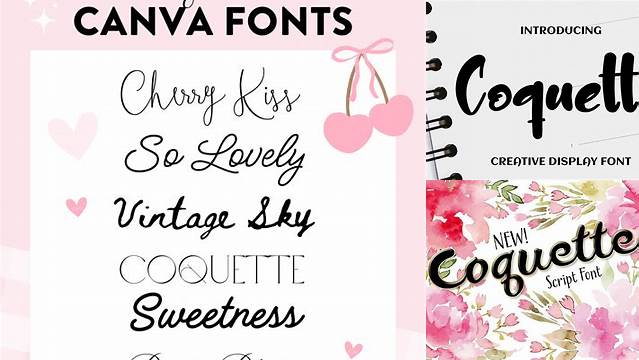
Fonts Coquette Symbols: Your Ultimate Guide
Hey guys, let's dive into the super cute world of fonts coquette simbolos! If you're into all things girly, aesthetic, and a little bit extra, then you're in the right place. This guide is your ultimate go-to for everything related to these adorable fonts and the symbols that make them pop. We'll explore what makes these fonts so special, where to find them, how to use them, and even give you some fun ideas to unleash your creativity. Get ready to add a touch of sweetness and charm to your designs – let's get started!
H2: Unveiling the Essence of Coquette Fonts
So, what exactly are fonts coquette simbolos? Think of them as the visual embodiment of all things delicate, feminine, and playfully chic. These fonts often feature whimsical letterforms, delicate serifs, and sometimes even come with adorable accompanying symbols like hearts, bows, stars, and sparkles. They're all about capturing that sweet, romantic, and slightly vintage vibe that's currently taking the design world by storm. Coquette fonts are the perfect choice for projects where you want to evoke feelings of charm, tenderness, and a touch of nostalgia. They're not just fonts; they're a whole aesthetic! They speak to a certain mood, a feeling, a sense of lightness and fun. It's like a visual whisper, saying, "Hey, I'm cute, and I know it!" The beauty of these fonts lies in their versatility. You can use them in a variety of projects, from personal stationery and social media graphics to branding and packaging for businesses. They add a unique touch that can instantly elevate your designs and make them stand out from the crowd. They are all about that feeling, that extra bit of magic that transforms an ordinary design into something truly special. When you choose a coquette font, you're not just picking a font; you're selecting a whole personality for your design.
These fonts often incorporate elements like elegant curves, swashes, and ligatures, adding a touch of sophistication and visual interest. They are crafted to be both visually appealing and easily readable, ensuring that your message is clear and engaging. The accompanying symbols, or simbolos, are the icing on the cake. These little extras, such as tiny hearts, floral accents, or delicate stars, add that final touch of charm that perfectly complements the font style. They're the visual punctuation marks that truly bring the coquette aesthetic to life. They're all about the details. Whether you're a seasoned designer or just starting out, understanding the core elements of coquette fonts is essential for creating designs that capture that sweet, dreamy vibe. It's about embracing the beauty in simplicity, celebrating the feminine touch, and adding a sprinkle of magic to everything you create. It's about making the ordinary extraordinary, and making the everyday a little bit sweeter.
H2: Exploring the Popular Coquette Font Styles
Now that we know what they are, let's explore some popular fonts coquette simbolos styles. There is a whole world of font styles out there, ranging from the classic to the quirky. Each has its unique charm and personality. Some of the most popular include script fonts, which mimic elegant handwriting, perfect for adding a personal touch to your designs. Then, you have the serif fonts, which have those little decorative strokes at the end of each letter, adding a touch of vintage charm. And, of course, there are the sans-serif fonts, which have clean lines and a modern feel. They can bring a fresh and contemporary touch to any project. Each font family has its own unique traits, from the thickness of the strokes to the spacing between the letters. But the beauty of fonts coquette simbolos is in the details. These fonts often include swashes, which are decorative flourishes that extend from the letters, adding a touch of elegance. They also come with ligatures, which are special characters that combine two or more letters into a single glyph, adding a touch of visual interest. Knowing the different font styles and their characteristics can help you make the right choice. Whether you're designing a logo, creating a social media post, or crafting a website, choosing the right font style can make all the difference. But the best thing is that you have many choices to fit any project.
Some examples of these include the script fonts, with their delicate strokes and elegant curves. These are perfect for adding a touch of romance and sophistication to your designs. Then there are the display fonts, which have bolder and more eye-catching designs that are best suited for headlines and titles. And, of course, you have the sans-serif fonts, which have clean lines and a modern feel. These can bring a fresh and contemporary touch to any project. Each font style brings its own unique charm and personality to the table. Script fonts can give an extra feeling of elegance and grace, while display fonts can help you make a bold statement. Understanding the various font styles and their unique characteristics is a key step in designing. Because with the right choice, you can create designs that capture the sweet, dreamy vibe of the coquette aesthetic. They are made to give your designs a touch of sweetness and charm. And to stand out from the crowd!
H3: The Charm of Script Fonts in the Coquette Aesthetic
Script fonts are like the graceful dancers of the fonts coquette simbolos world. These fonts are all about elegance and sophistication, with their flowing lines and delicate curves that mirror the beauty of handwritten letters. The allure of script fonts lies in their ability to add a personal and intimate touch to any design. They can evoke a sense of romance, nostalgia, and timeless charm that's hard to replicate with other font styles. They're often used for wedding invitations, greeting cards, and other projects where you want to convey a feeling of specialness and care. The beauty of script fonts is that they are very versatile. You can find script fonts that are perfect for any project. You can find them in many styles, from the classic and elegant to the modern and playful. Some script fonts feature elaborate flourishes and swashes, adding an extra touch of visual interest and sophistication. Others have a more simple and streamlined design, which is great for projects that need a clean and easy-to-read font. The best part is that they are always beautiful.
In the context of the coquette aesthetic, script fonts perfectly embody that sweet, romantic vibe. The flowing lines and delicate curves of script fonts create a sense of movement and grace, which is a key element of the coquette style. They're perfect for projects where you want to evoke feelings of tenderness, affection, and a touch of nostalgia. When paired with coquette symbols, such as hearts, bows, and floral accents, script fonts can truly transform your designs. They add a touch of whimsy and playfulness that captures the essence of the coquette aesthetic. Script fonts can take your projects to the next level, adding a touch of magic that transforms an ordinary design into something truly special. Whether you're creating a logo, designing a social media post, or crafting a website, choosing the right script font can make all the difference. With their elegance and charm, script fonts are always a great choice.
H3: Serif Fonts: Adding a Vintage Touch to Coquette Designs
Serif fonts are those classic fonts that have little decorative strokes at the end of each letter. When you use fonts coquette simbolos, serif fonts can add a vintage touch to your designs. They create a sense of elegance and sophistication. They're a great choice when you want to evoke feelings of nostalgia and timeless charm. Serif fonts are like the trusted friends of the font family. They've been around for a long time, and they're always there to add a touch of class to any project. From classic books to elegant websites, serif fonts have a place in the heart of many designs. These fonts are versatile, because they come in various styles. There are the traditional serif fonts that give a classic vibe, and there are more modern options that have a more contemporary feel. This means that you have many choices to fit any project.
In the context of the coquette aesthetic, serif fonts can bring a unique touch to your designs. They add a sense of elegance and sophistication that can perfectly complement the sweet and romantic vibe of the coquette style. When used in combination with coquette symbols, like hearts, bows, and floral accents, serif fonts create a cohesive and visually appealing design. It's a perfect way to create designs that capture the essence of the coquette aesthetic. Serif fonts add a sense of timelessness, making your designs feel both classic and chic. Whether you're designing a logo, creating a social media post, or crafting a website, the right serif font can elevate your designs. So you can create a design that is both beautiful and memorable. Serif fonts are always a great choice!
H3: Modern Sans-Serif Fonts in the Coquette Universe
While script and serif fonts have a classic appeal, modern sans-serif fonts also play a role in the fonts coquette simbolos aesthetic. Sans-serif fonts are those fonts that don't have the little decorative strokes at the end of each letter. They offer a clean and modern look that is perfect for balancing the sweetness and charm of the coquette style. These fonts can bring a sense of balance and sophistication to any project. They're known for their simplicity and readability, making them a great choice for various design applications. They're great for the minimalist aesthetic, or when you want to bring a touch of modernism to your designs.
In the context of the coquette aesthetic, sans-serif fonts can add a touch of sophistication and modernity. They're perfect for creating designs that feel both fresh and stylish. When paired with coquette symbols and colors, these fonts create a great design. Their clean lines and easy readability make them a great choice for designs, like websites and social media graphics. They are also great in projects where you want to highlight the message. Sans-serif fonts can give that sophisticated vibe, while still capturing the essence of the coquette aesthetic. Whether you're designing a logo, creating a social media post, or crafting a website, the right sans-serif font can make all the difference. With their modern and versatile design, they are always a great choice.
H2: Finding the Perfect Coquette Fonts: Where to Look
Alright, now that we know the different font styles, it's time to hunt for those perfect fonts coquette simbolos. There are many places to find them, each with its own unique advantages. From free websites to premium font marketplaces, you have many options. It's all about knowing where to look and how to make the most of your choices. You can get creative and explore the different options available to you, and discover new things. Remember that exploring is half of the fun.
H3: Free Font Resources for Coquette Lovers
If you're on a budget, don't worry, there are plenty of free resources for fonts coquette simbolos. Free fonts are a great way to experiment with different styles and see what works best for your projects. Websites like Google Fonts and Font Squirrel are goldmines of free fonts. You can find various fonts to download and use, all for free! Another great option is to check out websites that offer free font bundles. These bundles often include a curated selection of fonts, making it easy to find the perfect font for your next project. Keep in mind that while free fonts are a great resource, it's always a good idea to check the license before using them for commercial projects. Some free fonts may have restrictions on how they can be used, so always double-check the details before you start. Even though free fonts are great, remember to check the licenses to make sure you are using them correctly.
H3: Premium Font Marketplaces and Their Advantages
If you're looking for more options and want to support font designers, premium font marketplaces are a great choice. Websites like Creative Market and MyFonts offer a wide selection of high-quality fonts coquette simbolos. This includes different font styles, from script fonts to serif fonts, that are perfect for any coquette project. One of the advantages of premium fonts is the level of quality and design. Professional designers have created these fonts, ensuring that they're not only beautiful but also well-crafted and optimized for use. You'll often find a variety of font weights, styles, and characters, giving you more flexibility in your designs. Another advantage of premium fonts is the licensing. You'll often get a more flexible license, which means you can use the fonts for both personal and commercial projects without any limitations. While premium fonts come with a cost, they offer a better value for your money. They are more professional, which makes them more visually appealing. This can help you create a design that stands out and makes an impression. So if you're looking for high-quality fonts and want to support font designers, premium font marketplaces are a great choice. Remember that investing in premium fonts can really elevate the overall quality and design of your projects.
H2: Integrating Coquette Symbols into Your Designs
Let's explore the world of fonts coquette simbolos and the creative ways you can integrate those adorable symbols into your designs. These little details can bring a touch of sweetness and playfulness, enhancing your designs. Symbols are the perfect way to capture the essence of the coquette aesthetic, adding a touch of visual interest. Here's how to use these symbols effectively.
H3: Utilizing Heart and Bow Symbols for a Feminine Touch
Heart and bow symbols are the heart and soul of the fonts coquette simbolos aesthetic. They perfectly embody that sweet and romantic vibe. Whether you're using a simple heart icon or an intricate bow design, these symbols can instantly add a touch of femininity to your designs. You can use them in various ways, from creating logos and social media graphics to website designs and stationery. They can be incorporated into the text itself, as bullet points, or as decorative accents. The key is to use them in a way that enhances your overall design without overwhelming it. Think about using different sizes, colors, and placements to create a visually appealing composition. Try adding a heart icon next to a call-to-action button to encourage users to interact. Or, you can use a bow symbol to decorate the header of a blog post or a website. With these symbols, your designs will be irresistible.
H3: Stars and Sparkles: Adding Whimsy to Your Font Choices
Stars and sparkles are the perfect way to add a touch of whimsy to your fonts coquette simbolos designs. They bring a sense of playfulness and magic to your projects. You can incorporate them in different ways. Use star and sparkle symbols as accents for your typography, adding a touch of visual interest to your words. You can create a starburst effect around a headline or a call-to-action, making it pop and grab attention. You can also use stars and sparkles as backgrounds or patterns, creating a beautiful design. Play with different sizes, colors, and placements to create a visually appealing design. If you want to make your designs pop, stars and sparkles are a must-have in your design tool kit. These symbols are sure to create beautiful designs.
H3: Floral Accents and Embellishments in Coquette Designs
Floral accents are another great way to enhance the fonts coquette simbolos aesthetic. They add a touch of nature and elegance to your designs. There is a world of floral options to choose from. You can use simple flower icons or more detailed illustrations. Floral accents can be used in several ways. You can use floral elements as accents in your typography, adding a touch of visual interest to your words. Floral accents are perfect for adding a touch of elegance to your designs, from wedding invitations to social media graphics. You can create a border or frame around your text. To complement your text, you can add a floral background or pattern. Experiment with different colors and placements to create a visually appealing design. With floral accents, your designs will be sure to impress.
H2: Tips and Tricks for Using Coquette Fonts Effectively
Now that you have your fonts, it's time to learn the best practices. Let's uncover some tips and tricks for using fonts coquette simbolos effectively. From selecting the perfect font pairings to considering readability and accessibility, these insights will help you create designs that capture the charm of the coquette aesthetic. Here's what you need to know.
H3: Perfecting Font Pairings for Maximum Impact
Choosing the perfect font pairings is crucial when working with fonts coquette simbolos. This is the key to creating a harmonious design. Here are a few tips to get you started. First, start by selecting a primary font that sets the tone for your design. Then, choose a secondary font to complement your primary font, creating a balanced design. When pairing fonts, you can use a variety of options. You can try pairing a script font with a sans-serif font. They offer a great contrast, while still being beautiful. If you want a more cohesive look, you can pair a script font with a serif font. Another option is to choose fonts with similar design styles. When creating your design, it's important to consider the overall message. The key is to select fonts that are visually appealing, and that communicate your message effectively. With these tips, you will create a beautiful design.
H3: Ensuring Readability and Accessibility in Your Designs
When working with fonts coquette simbolos, readability and accessibility should always be a top priority. You want your audience to easily read and understand your message. Here are some tips to keep in mind. First, choose fonts that are easy to read. Avoid fonts that are too ornate or complex. Then, make sure that there is enough contrast between the text and the background. Dark text on a light background is easier to read. You can use a tool, such as a color contrast checker. You can make sure that the design is accessible to people of all abilities. When designing, make sure you select the proper font size. You can also ensure readability by using proper line spacing and letter spacing. With these tips, you can ensure that your designs are beautiful and easy to read.
H3: Using Color Palettes to Complement Coquette Fonts
Using the right color palettes is essential when working with fonts coquette simbolos. It helps to complement the fonts. With these tips, you can create stunning designs. First, when selecting a color palette, consider the tone and message of your design. For example, you can choose soft pastels or vibrant colors. Make sure that the colors you select complement the fonts. You can use tools to create your palettes, such as Adobe Color or Coolors. You can also use online resources to search for inspiration. When designing, remember to choose colors that are accessible. By selecting the right colors, you can create amazing designs.
H2: Creating Coquette Designs: Creative Project Ideas
It's time to spark your creativity and explore some creative project ideas for fonts coquette simbolos. You can use these fonts to create various designs, from social media graphics to personal stationery. Whether you're a seasoned designer or just starting, here are some projects to inspire you.
H3: Designing Social Media Graphics with Coquette Fonts
Social media is a great place to use fonts coquette simbolos. You can create stunning social media graphics that capture your audience's attention. The options are endless: Instagram posts, Pinterest pins, and Facebook banners. Start by selecting the right fonts and symbols to match your design. Then, choose a color palette that complements your brand or theme. Be sure to ensure that the text is easy to read on different devices. By following these tips, you can create social media graphics that are beautiful and engaging. With the right fonts, symbols, and colors, you can create the designs of your dreams.
H3: Creating Personalized Stationery and Invitations
Fonts coquette simbolos are also perfect for creating personalized stationery and invitations. You can create beautiful and unique designs, from wedding invitations to thank-you cards. When you create the stationery, select a font that matches the overall tone of the event. Choose a color palette that complements the theme. Make sure your design is easy to read and appealing. By following these tips, you can create personalized stationery and invitations that are both beautiful and special. Create a design that captures the essence of your event, and with a bit of creativity, your stationery will be unforgettable.
H3: Branding and Logo Design with a Coquette Aesthetic
If you want to capture the charm of the coquette aesthetic, use fonts coquette simbolos. You can create branding and logo designs that create a lasting impression. Start by selecting a font that perfectly reflects your brand's personality and message. Choose a color palette that complements the fonts. Be sure to ensure that the design is versatile and memorable. You can also incorporate coquette symbols. With the right fonts, colors, and symbols, you can create branding and logo designs that capture the charm of the coquette aesthetic.
H2: The Evolution and Future of Coquette Fonts
Let's talk about the evolution and the future of fonts coquette simbolos. The coquette aesthetic has been around for a while. It continues to evolve and adapt to design trends. Here's a look at the past and the possibilities.
H3: The History and Origins of the Coquette Aesthetic
To understand the future of fonts coquette simbolos, let's learn the history. The coquette aesthetic has a rich history, dating back to the Victorian era. It embraces beauty, femininity, and nostalgia. Coquette fonts draw inspiration from this era, adding a touch of vintage charm. The coquette aesthetic has evolved, but it has always been associated with elegance, grace, and romance. With the evolution of the design, we are still using its key elements.
H3: Current Trends and Influences in Coquette Font Design
The fonts coquette simbolos aesthetic is constantly evolving. It is influenced by various trends, including modern designs. In order to be current, we should always pay attention to the latest design. By staying aware of trends, you can create designs that are both fresh and exciting. By knowing current trends, you will always be current.
H3: Predictions for the Future of Coquette Font Styles
As we move forward, what does the future hold for fonts coquette simbolos? We can predict exciting possibilities. The coquette aesthetic will continue to evolve. With creativity and innovation, these fonts will be even more popular. So, let's see how these fonts evolve.
H2: Troubleshooting Common Issues with Coquette Fonts
It's important to learn how to troubleshoot issues when working with fonts coquette simbolos. Here's how to fix the common problems, from missing glyphs to formatting issues. You'll have your designs looking their best in no time. Let's solve these problems.
H3: Dealing with Missing Glyphs and Character Issues
Missing glyphs and character issues can happen when working with fonts coquette simbolos. It's a common problem, but here's how to fix them. First, make sure that you have installed the font correctly. Check your font settings and character maps. If the problem continues, check the font files. By following these steps, you can get your font working.
H3: Resolving Font Compatibility and Formatting Problems
Font compatibility and formatting problems are a common issue when working with fonts coquette simbolos. These issues can affect the appearance and readability of your text. You can solve these problems by checking font compatibility. Make sure that the font is compatible with the software or device you are using. If the problem continues, experiment with different formatting options, such as font size and spacing. With these steps, your fonts will work well.
H3: Addressing Copyright and Licensing Concerns
Copyright and licensing are important considerations when working with fonts coquette simbolos. Here's what you should know. Always check the font license before using it in a project. Understand the terms of the license. If you have any doubts, contact the font designer or vendor for clarification. By following these steps, you can protect yourself. By understanding and adhering to the license agreements, you ensure that you use fonts legally. With these steps, you can have your designs without any problems.
H2: Conclusion: Embrace the Sweetness of Coquette Fonts!
And there you have it, guys! We've covered everything you need to know about fonts coquette simbolos. From understanding the different font styles and finding the perfect resources to creating stunning designs and troubleshooting common issues. Now, go out there and unleash your creativity. Embrace the sweetness, the charm, and the endless possibilities that these adorable fonts and symbols offer. Whether you're designing for social media, personal stationery, or branding, the coquette aesthetic is all about adding a touch of magic and making your designs extra special. So, go on, let your inner coquette shine! And don't forget to have fun along the way!